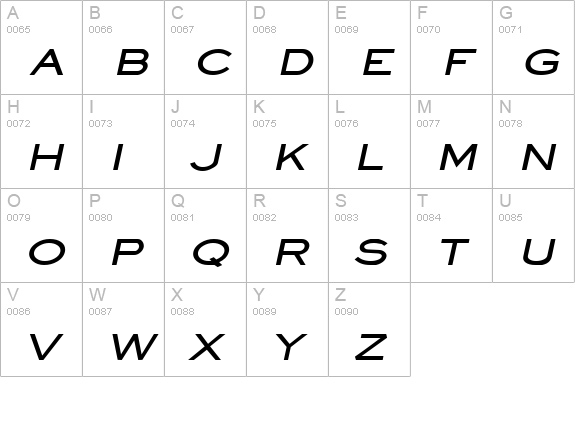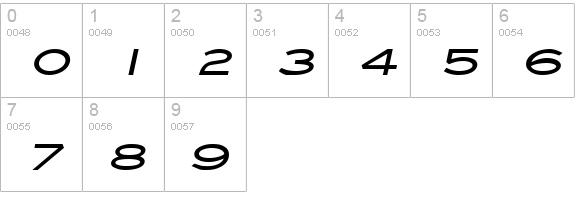
Eye glass Wide Bold Italic is a strong, high-contrast, extended-width, italic variant in the Eye typeface family \xE2\x80\x94 well suited to headlines, attention-grabbing titles, and strong calls-to-action.
Eye glass Wide Bold Italic font is a modern and stylish typeface that exudes confidence and sophistication. Its bold strokes and italicized design make it perfect for adding a touch of elegance to any project. The wide letterforms give it a unique and eye-catching appearance, making it stand out from other fonts. And the best part is, Eye glass Wide Bold Italic font is available for free download at FontsMarket.com! This means you can easily access this stunning font and use it in your designs without any cost. Whether you're working on a branding project, website design, or any other creative endeavor, Eye glass Wide Bold Italic font is sure to make a statement. Don't miss out on the opportunity to enhance your designs with this versatile and striking font. Download Eye glass Wide Bold Italic font today and take your projects to the next level!